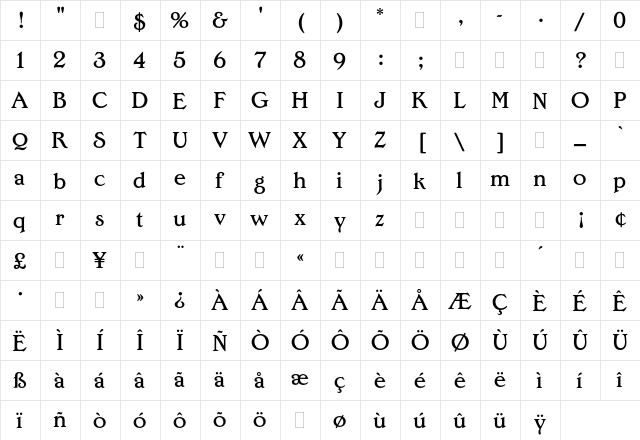
Edwardian Medium Plain
Design Context for Edwardian Medium Typeface
Edwardian Medium takes a measured approach to typography — its balanced proportions and neutral character make it a reliable workhorse for both digital and print work.